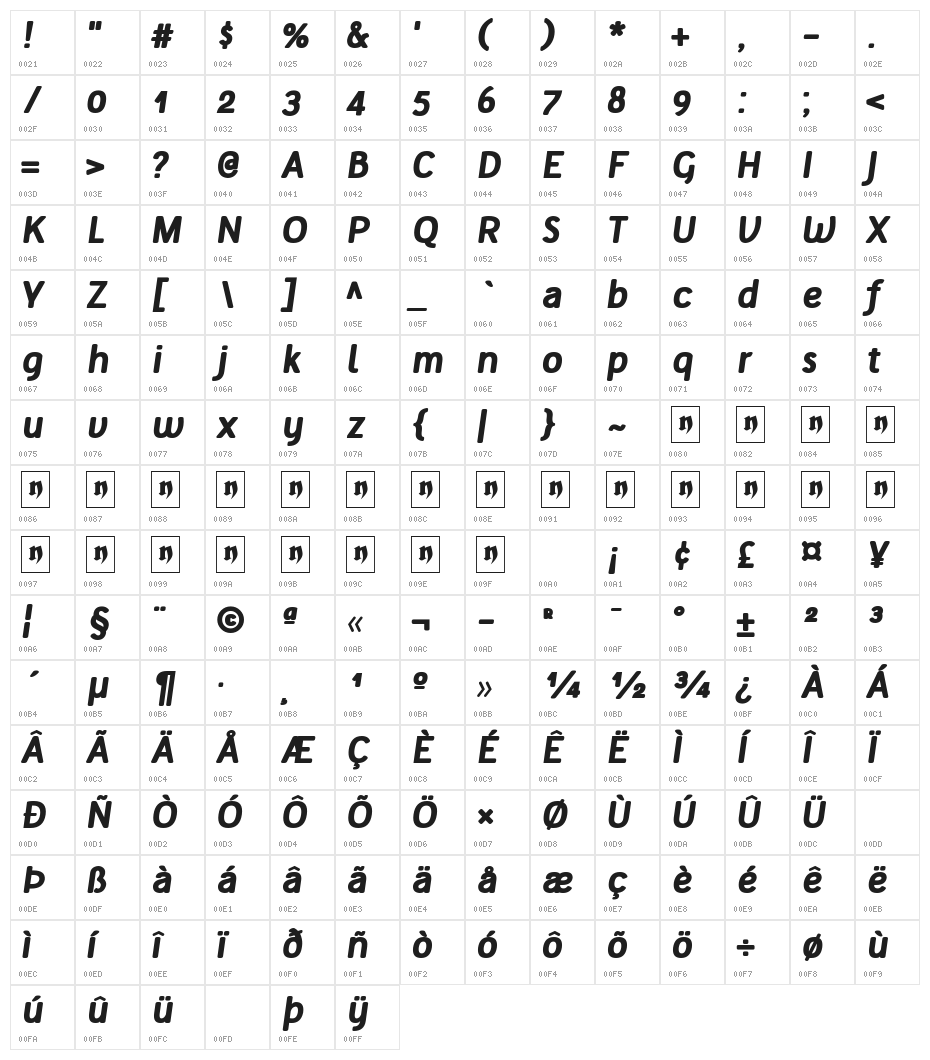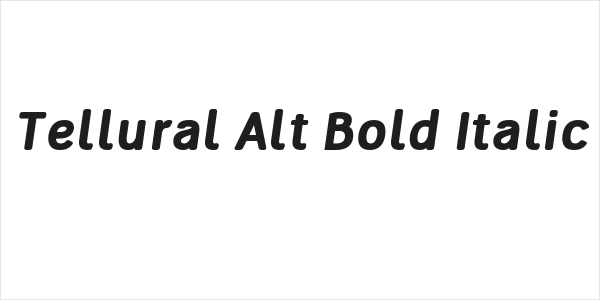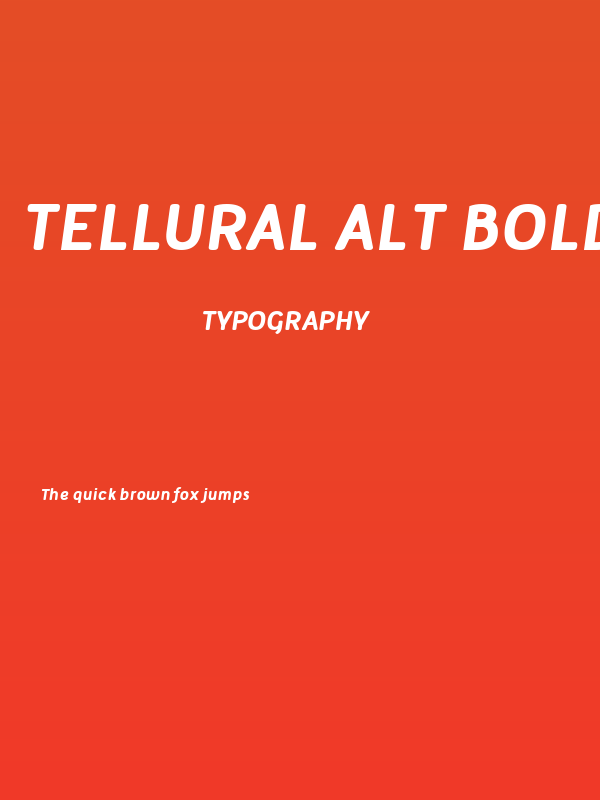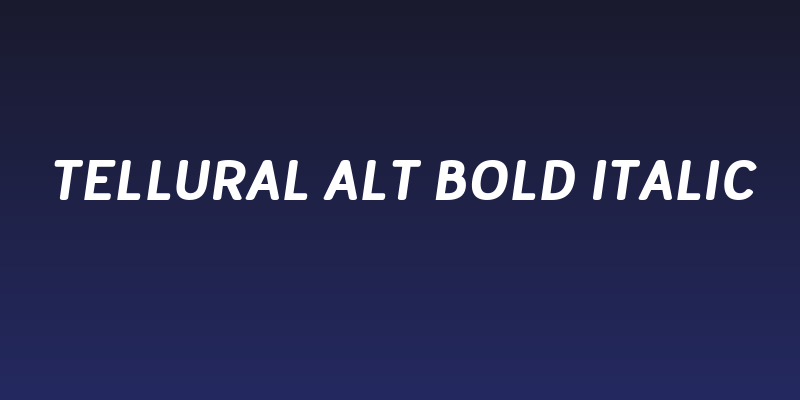
Tellural Alt Bold Italic Font
Tellural Alt Bold Italic Description
This font exhibits a bold and italicized style, characterized by smooth, rounded edges and a slightly condensed form. The letters are evenly spaced, providing a clean and modern appearance. The uppercase and lowercase letters maintain a consistent flow, with the italic slant adding a dynamic and energetic feel. The numerals are clear and legible, matching the overall boldness of the alphabet. Special characters are well-integrated, maintaining the font's cohesive look. This font is versatile, suitable for various design applications where a bold statement is needed.
| Proposed Projects | Ideal for branding, headlines, posters, and digital media where a strong, modern impact is desired. |